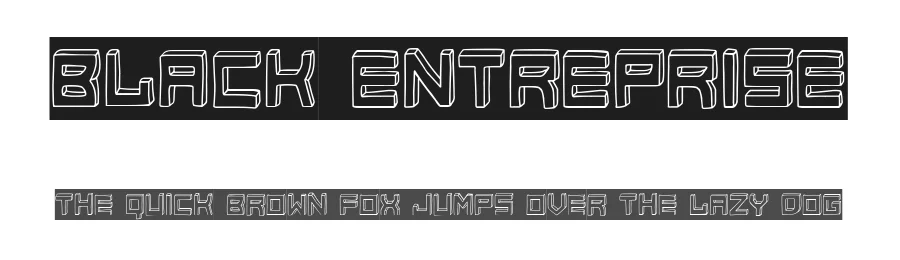
About Dymo Font Invers Font
Dymo Font Invers is a decorative font designed by Manfred Klein. It includes 129 glyphs, a medium weight, TTF (TrueType) format, and 155 languages. Dymo Font Invers is free to download; check the license details on this page before commercial use. Decorative fonts like Dymo Font Invers work best for logos, posters, packaging, and standout headlines.
Dymo Font Invers Font is a decorative font that shines as a display or heading face. Pair it with a clean sans-serif or serif font for body text β the contrast creates a clear hierarchy while the two styles stay balanced and easy to read.
Dymo Font Invers Font
Dymo Font Invers Font is a decorative typeface by Manfred Klein, ideal for logos, invitations, branding, and creative projects.